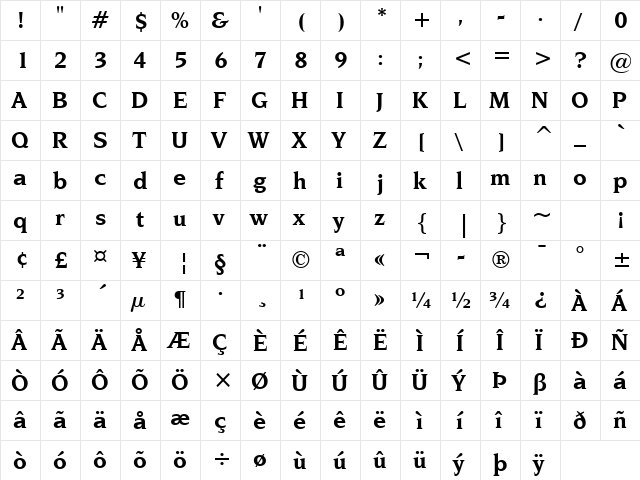
Novarese Bk BT Bold
Design Context for Novarese Bk BT Typeface
Novarese Bk BT is a composed and adaptable typeface that performs quietly and consistently across a wide range of design contexts. The heavy weight commands attention and anchors typographic hierarchies.